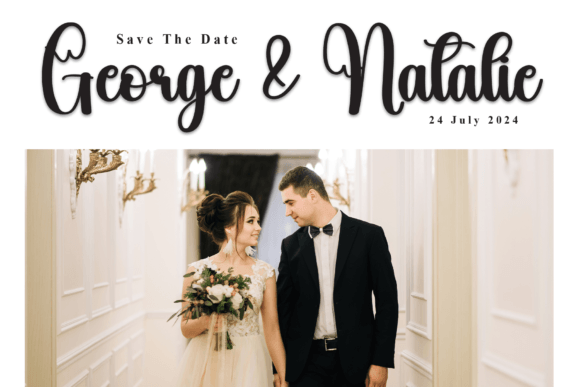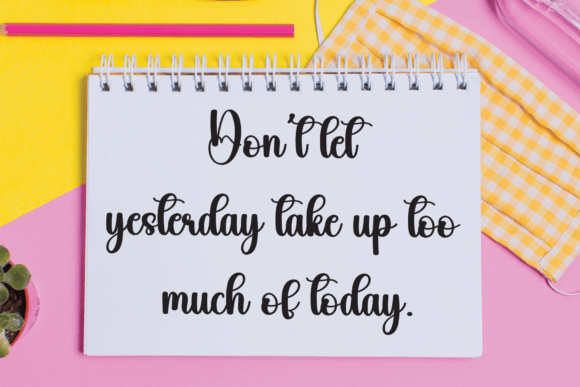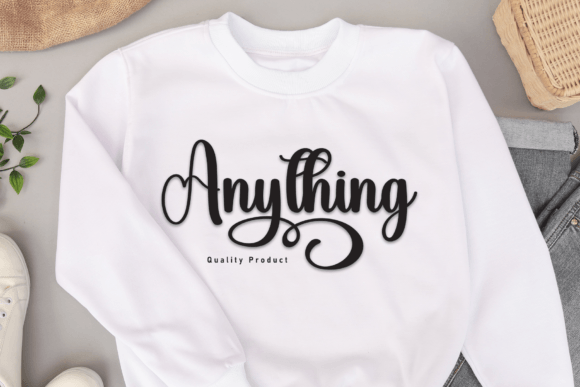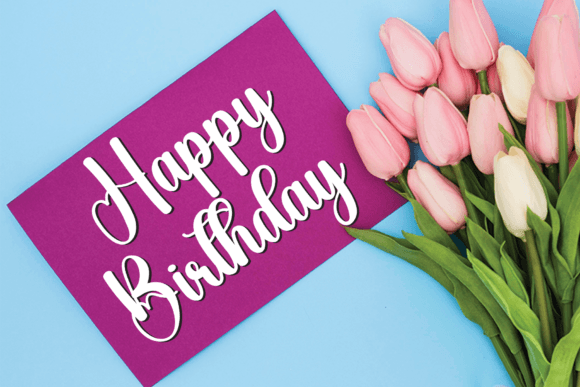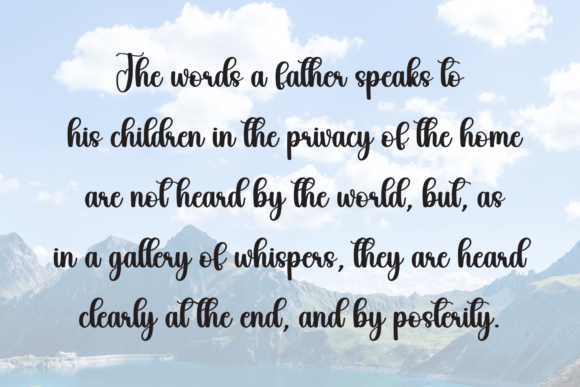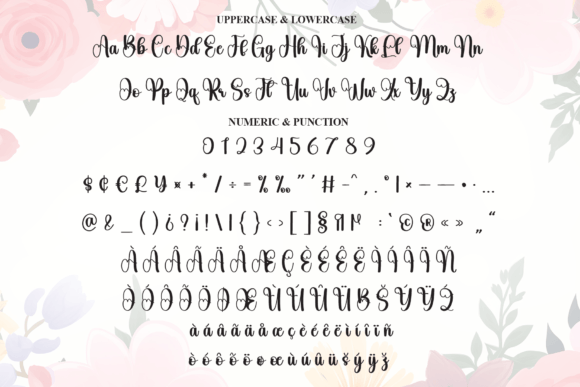
Introducing Angela Font: The Perfect Blend of Casual Elegance and Friendly Vibes
Are you tired of using the same old fonts for your personal projects, social media, and invitations? Look no further than Angela Font, a beautiful casual handwritten font that captures a relaxed and friendly vibe with its natural, flowing strokes. In this article, we’ll dive into the world of Angela Font, exploring its unique features, uses, and benefits for designers and crafters.
The Charm of Angela Font
Angela Font is a carefully crafted font that exudes warmth and authenticity. Its easygoing style makes it perfect for adding a personal touch to any design. Whether you’re creating a social media post, a personal blog, or an invitation, Angela Font brings an effortless, charming touch that will make your content stand out.
One of the key features of Angela Font is its natural, flowing strokes. The font’s casual handwritten style gives it a unique, organic feel that’s perfect for creating a sense of warmth and connection with your audience. The letters are carefully shaped to create a sense of movement and fluidity, making the font feel dynamic and engaging.
Uses for Angela Font
So, what can you use Angela Font for? The possibilities are endless! Here are a few ideas to get you started:
- Personal Projects: Use Angela Font to add a personal touch to your blog, journal, or scrapbook.
- Social Media: Stand out on social media with eye-catching posts and stories that showcase your personality.
- Invitations: Create beautiful, one-of-a-kind invitations for special occasions like weddings, birthdays, and baby showers.
- Crafting: Use Angela Font to add a personal touch to your handmade crafts, such as knitting patterns, sewing projects, or paper crafts.
So, what makes Angela Font a great choice for designers and crafters? Here are a few benefits:
- Easy to Read: Angela Font is clear and easy to read, making it perfect for body text or captions.
- Versatile: The font’s casual style makes it suitable for a wide range of projects, from formal to informal.
- Time-Saving: With Angela Font, you can create beautiful designs in no time, thanks to its effortless and charming style.
- Unique: Angela Font is a one-of-a-kind font that will help you stand out from the crowd and showcase your personality.
Tips for Using Angela Font
Here are a few tips for getting the most out of Angela Font:
- Pair with Other Fonts: Experiment with pairing Angela Font with other fonts to create a unique and eye-catching combination.
- Play with Colors: Angela Font looks great in a variety of colors, so don’t be afraid to experiment and find the perfect hue for your project.
- Use for Headings and Titles: Angela Font is perfect for headings and titles, where its bold and playful style can really shine.
In conclusion, Angela Font is a beautiful and versatile font that’s perfect for designers and crafters looking to add a personal touch to their projects. With its natural, flowing strokes and effortless, charming style, Angela Font brings warmth and authenticity to any design. Whether you’re creating a social media post, a personal blog, or an invitation, Angela Font is the perfect choice. So why not give it a try and see the difference it can make?